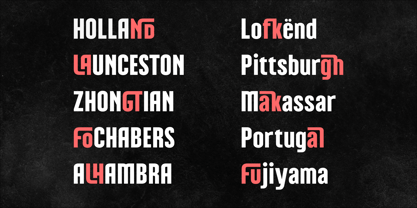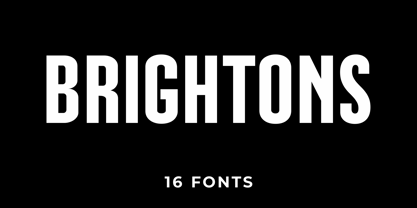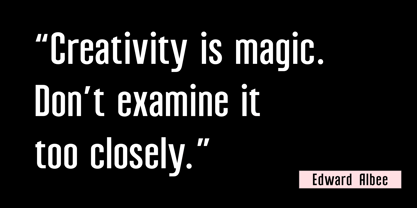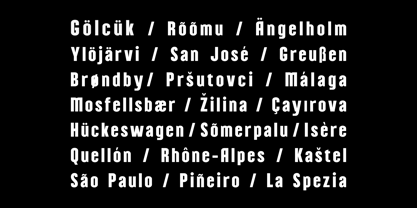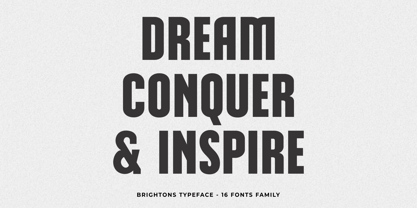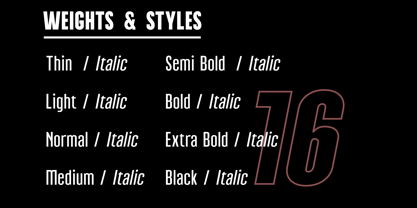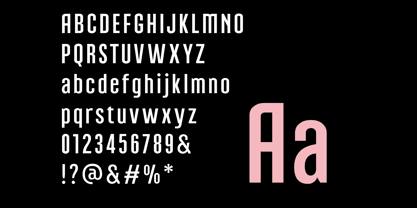
Brightons
Brightons – Modern Typeface Family (16 Styles)
Brightons is a modern and versatile typeface family designed to elevate your creative projects with style, clarity, and flexibility. Featuring 16 unique styles, this font family offers a complete typographic solution for designers who want both visual impact and professional consistency.
Crafted with a contemporary aesthetic, Brightons combines clean letterforms, balanced proportions, and precise spacing to deliver a polished and highly readable design. Each style is carefully developed to maintain harmony across the family while offering its own distinct personality—from sleek and refined to bold and attention-grabbing.
Brightons is built for versatility, making it perfect for a wide range of applications. Whether you're working on posters, banners, advertisements, magazines, newspapers, websites, or branding projects, this font adapts effortlessly to different creative needs.
Designed with readability at its core, Brightons ensures your message remains clear and legible across both print and digital media. Its thoughtful construction allows your content to stand out while maintaining a professional and modern appearance.
With its wide range of styles, Brightons gives you the freedom to create strong typographic hierarchy, dynamic layouts, and cohesive brand identities.
Key Features
Modern Typeface Family
Clean and contemporary design with a professional look.
16 Font Styles
A complete family for flexible and dynamic typography.
Highly Readable
Optimized spacing and structure for clarity.
Versatile Design Use
Suitable for both digital and print applications.
Balanced & Consistent
Harmonized letterforms across all styles.
Multilingual Support
Extended characters for global design projects.
Perfect For
• Posters & Banners
• Advertising Campaigns
• Magazine & Newspaper Layouts
• Website & UI Design
• Branding & Identity Design
• Social Media Graphics
• Corporate Materials
• Editorial Design
• Brightons Thin
• Brightons Thin Italic
• Brightons Extra Light
• Brightons Extra Light Italic
• Brightons Light
• Brightons Light Italic
• Brightons Regular
• Brightons Regular Italic
• Brightons Medium
• Brightons Medium Italic
• Brightons Semi Bold
• Brightons Semi Bold Italic
• Brightons Bold
• Brightons Bold Italic
• Brightons Extra Bold
• Brightons Extra Bold Italic